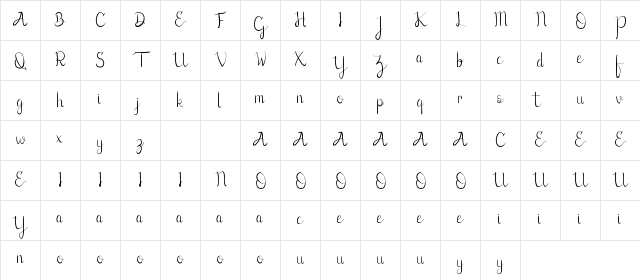
Lovic Demo Regular
Foundry: Edric Studio
Designer: Aghnia Nurul Yasmine
Design Context for Lovic Demo
Lovic Demo is a composed and adaptable typeface that performs quietly and consistently across a wide range of design contexts.